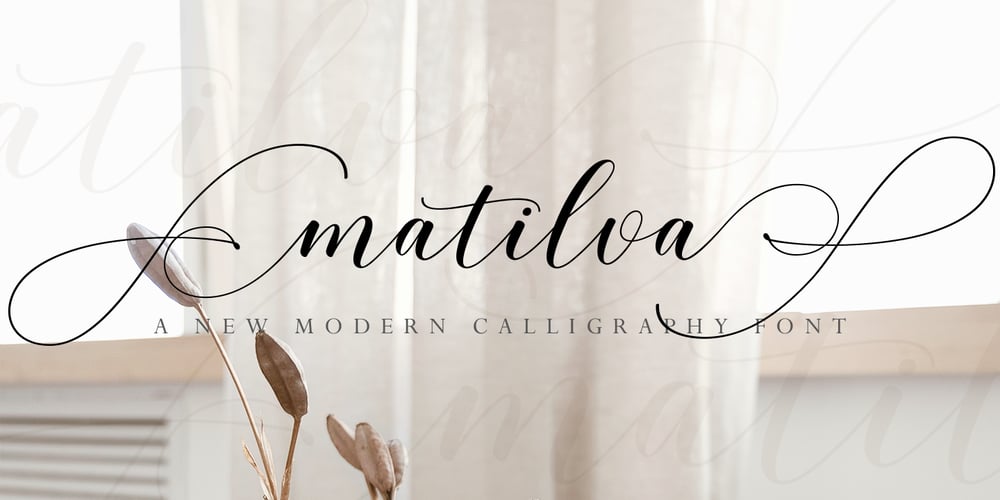
Matilva Script
Matilva Script font
Matilva Script Font Family was designed by Juni Fadil Putra and published by FadeLine Studio. Matilva Script contains 1 styles and family package options. This is a Modern Calligraphy font with a elegant italic style, and contains soft and neat glyph characters! With a style like this, this font will be suitable in use for logo’s, branding projects, homeware designs, product packaging, mugs, quotes, posters, shopping bags, logo’s, t-shirts, book covers, name card, invitation cards, greeting cards, and all your other lovely projects.